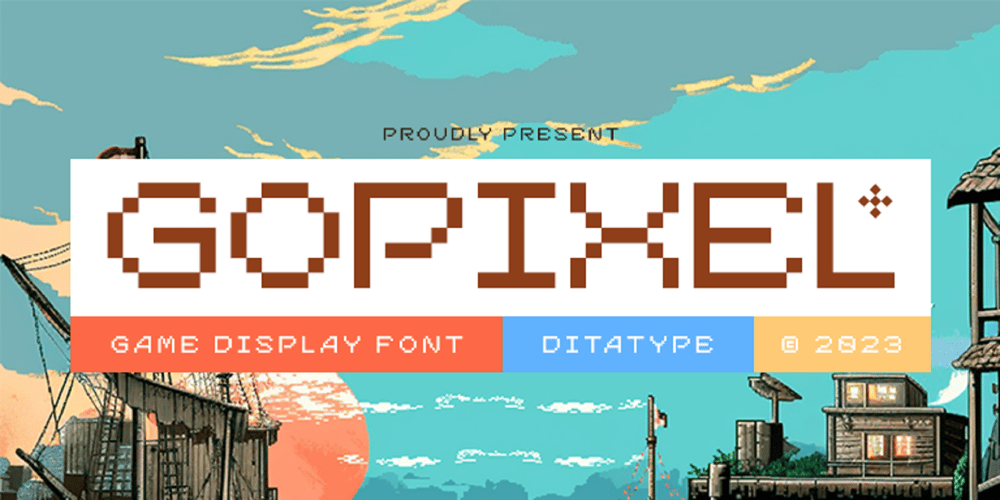
Gopixel Font Family was designed by Donis Miftahudin and published by Ditatype. Gopixel contains 1 styles and family package options. Go Pixel is an exciting game-themed display font designed in uppercase, capturing the essence of retro pixel art. The consistent proportions of this font create a harmonious and balanced visual experience. Each uppercase letter is crafted with precision, ensuring uniformity and maintaining the overall aesthetic appeal. This design choice guarantees that every character fits seamlessly together, resulting in a cohesive and visually pleasing typographic composition. The uneven borders of Go Pixel add a touch of vintage charm and quirkiness to the font. Each letter is outlined with varying thickness, mimicking the imperfections found in retro pixel art. This unique feature gives the font a distinct personality and captures the nostalgia of classic video games. With low contrast, it embraces a softer and more subtle approach to readability. The slight variation in stroke width allows for a smooth and comfortable reading experience. While the low contrast may be unconventional, it enhances the overall retro feel of the font, immersing your audience in the world of classic gaming. Enjoy the available features here.Features: Multilingual Supports PUA Encoded Numerals and Punctuations Go Pixel fits in headlines, logos, posters, titles, branding materials, print media, editorial layouts, website headers, and any projects that aim to evoke a sense of fun and nostalgia. Find out more ways to use this font by taking a look at the font preview.Thanks for purchasing our fonts. Hopefully, you have a great time using our font. Feel free to contact us anytime for further information or when you have trouble with the font. Thanks a lot and happy designing.